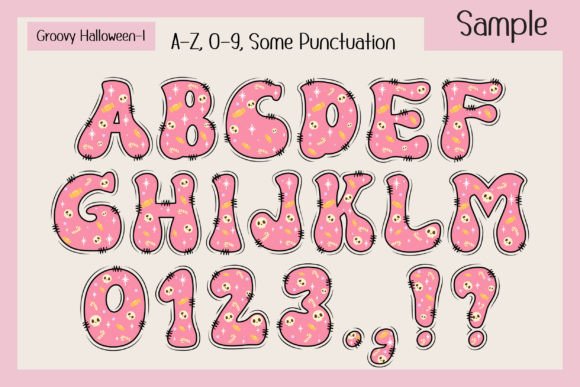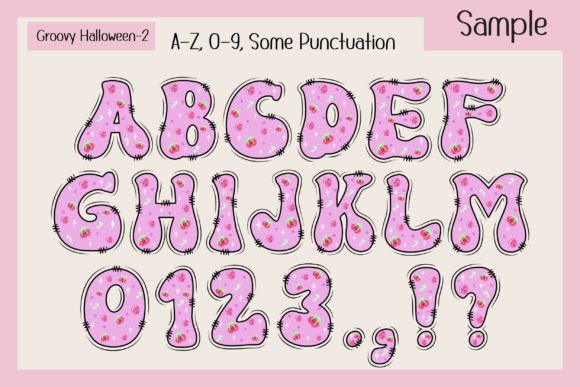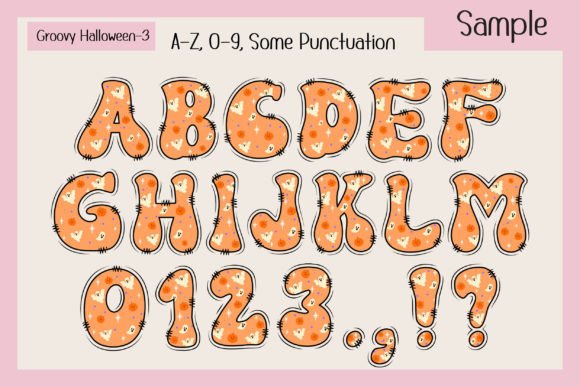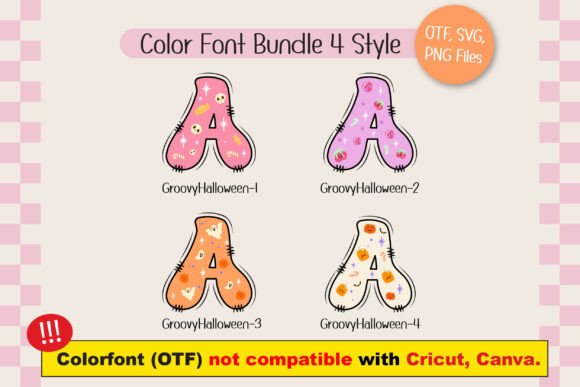
Groovy Halloween Font
Introducing “Groovy Halloween” a vibrant Halloween color font theme that seamlessly blends the playful essence of groovy retro style with a fun, cute, and sweet retro color palette. This delightful font offers four unique styles and comes with a bonus of 20 matching clip arts, making it perfect for a wide range of creative projects.